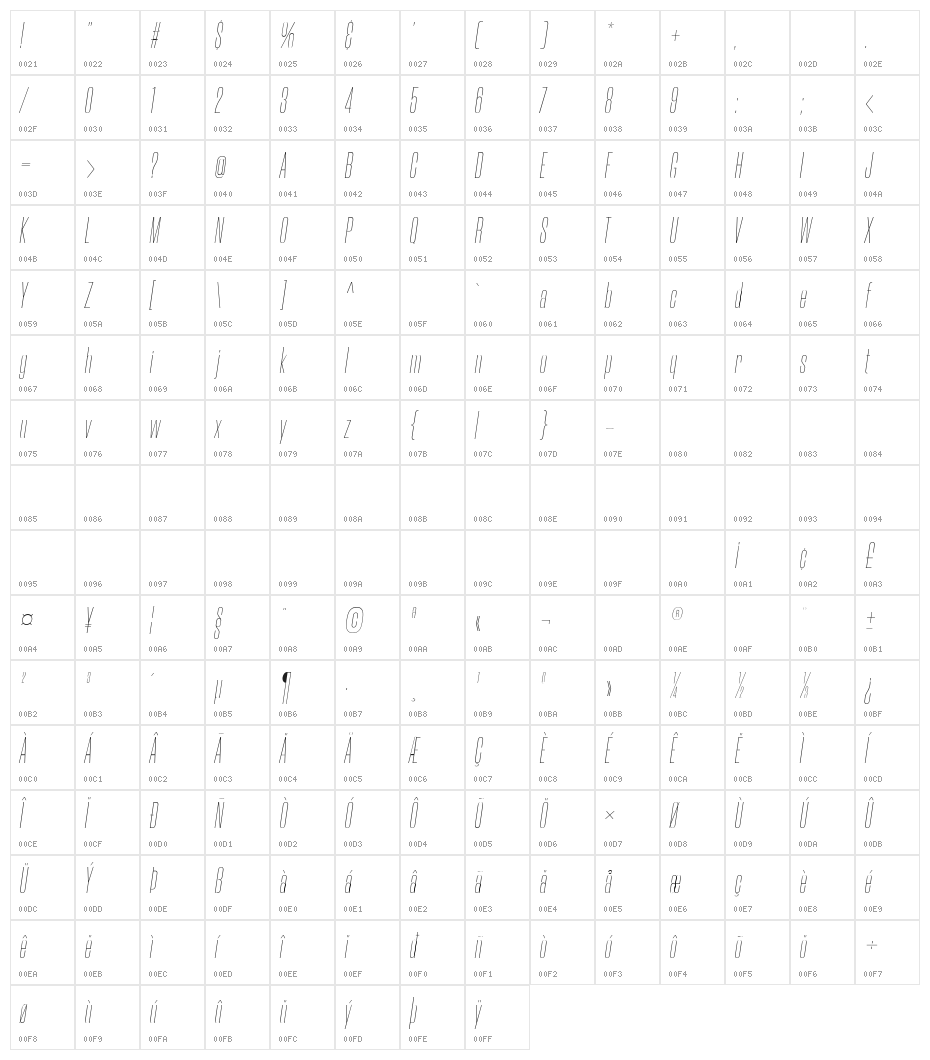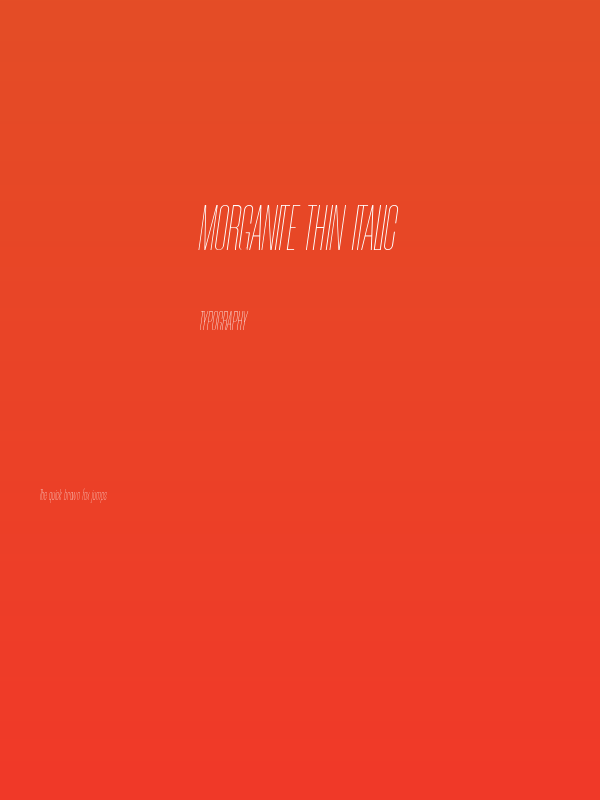
Morganite Thin Italic Font
Morganite Thin Italic Description
This font exhibits a sleek and modern aesthetic with its thin, elongated letterforms and italicized style. The characters are elegantly narrow, creating a sophisticated and contemporary look. The font's design emphasizes verticality, with clean lines and minimal embellishments, making it ideal for a refined and polished appearance. The uppercase and lowercase letters maintain a consistent style, while the numerals and special characters complement the overall design. Its thin strokes and italic slant add a dynamic and fluid quality, enhancing its visual appeal.